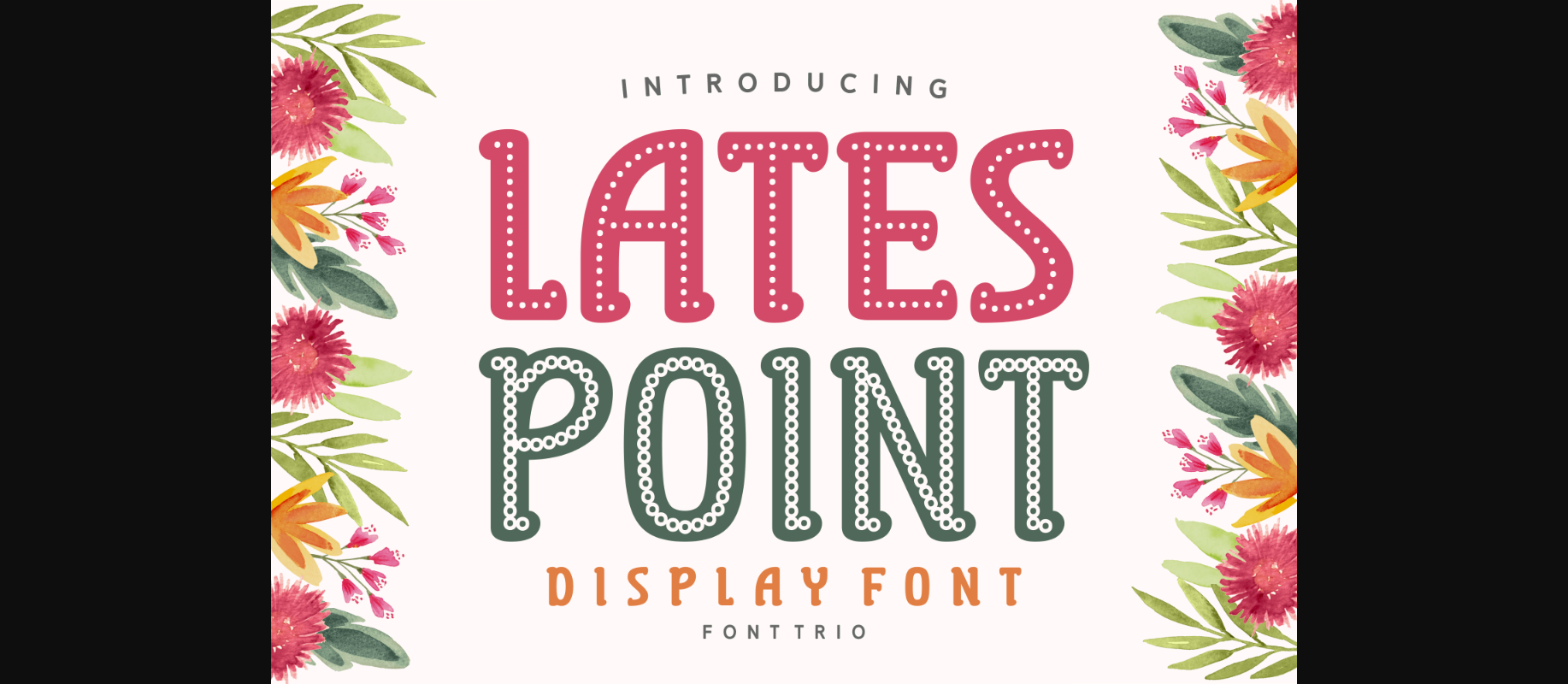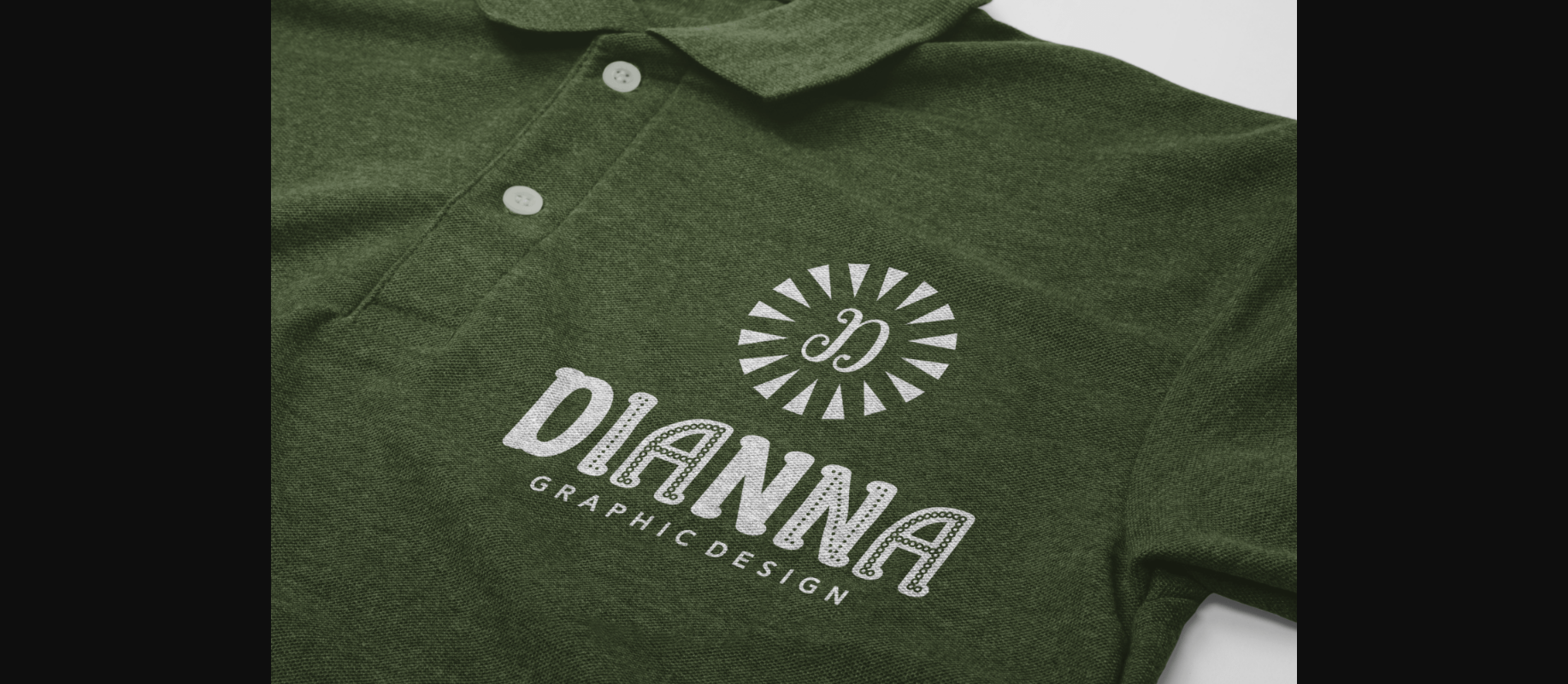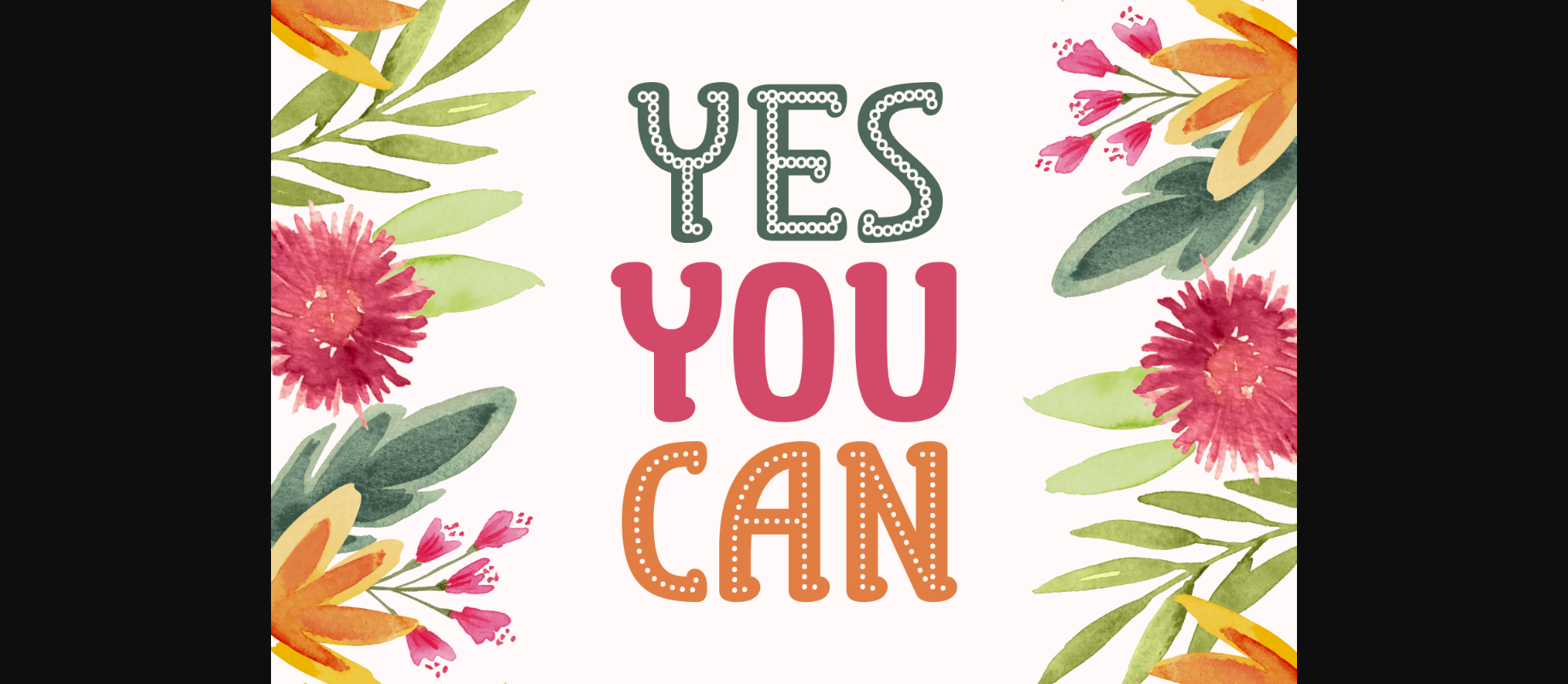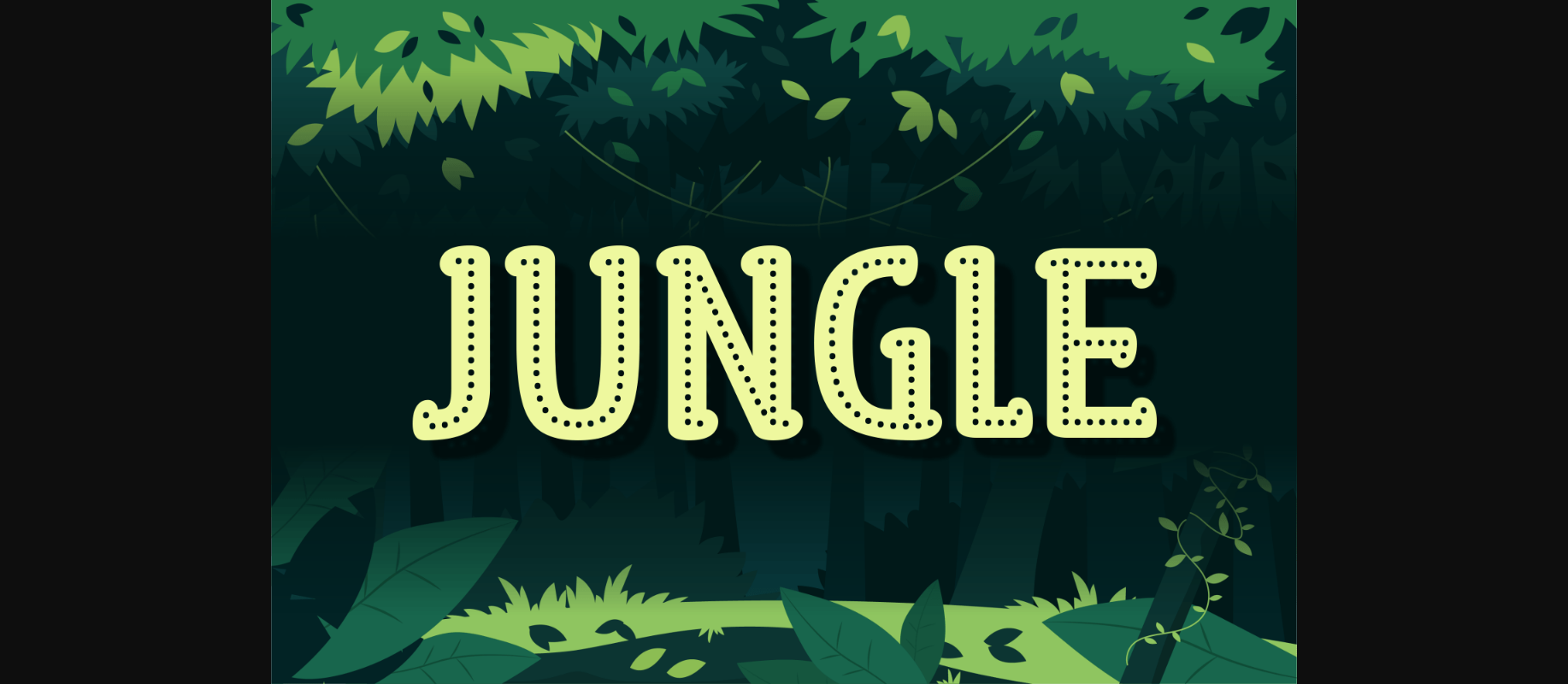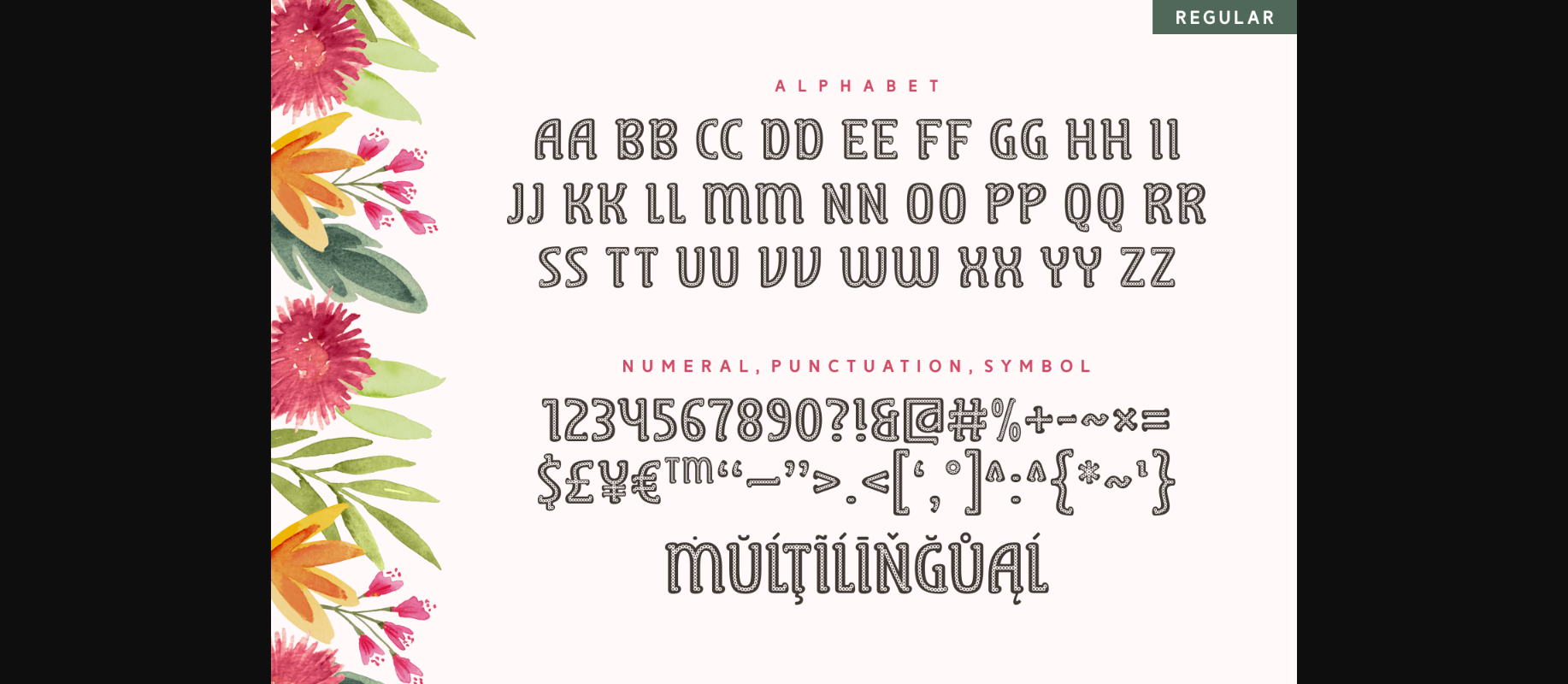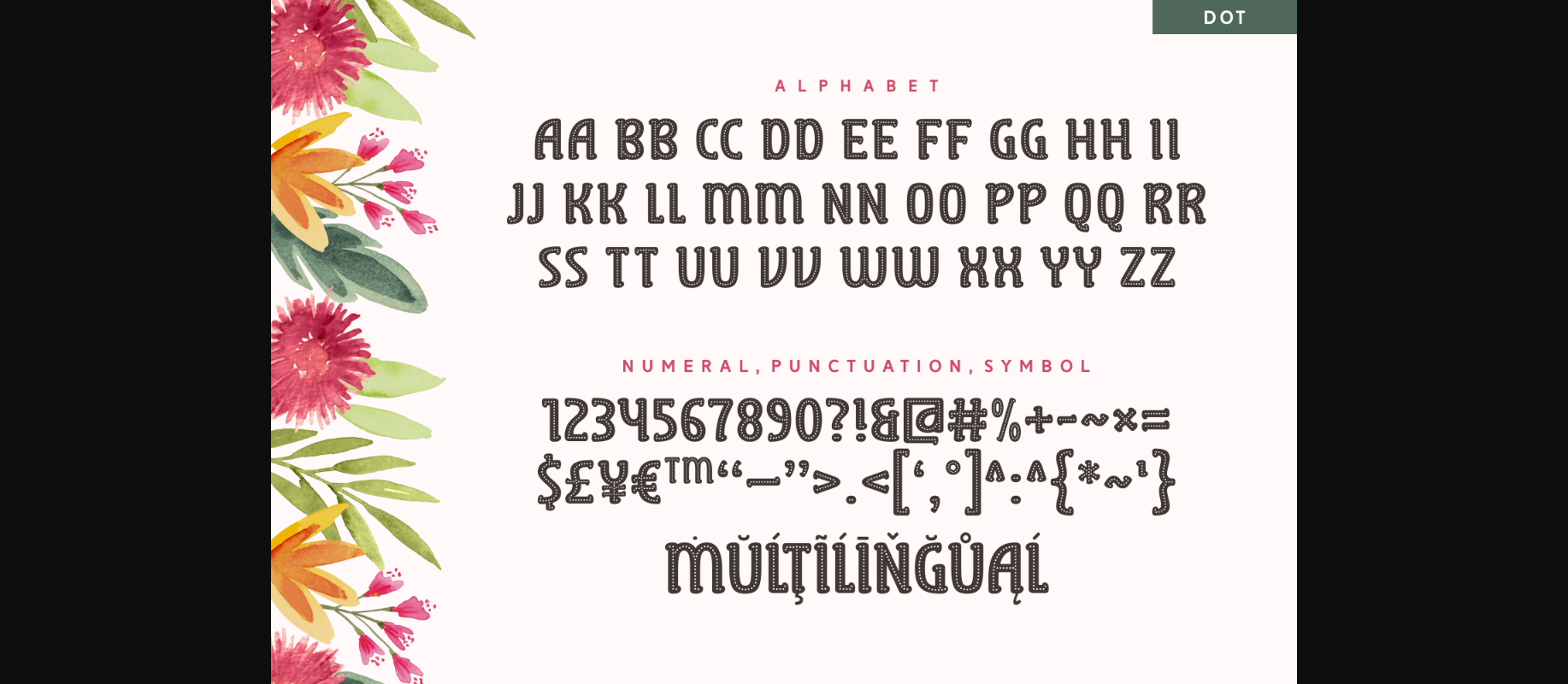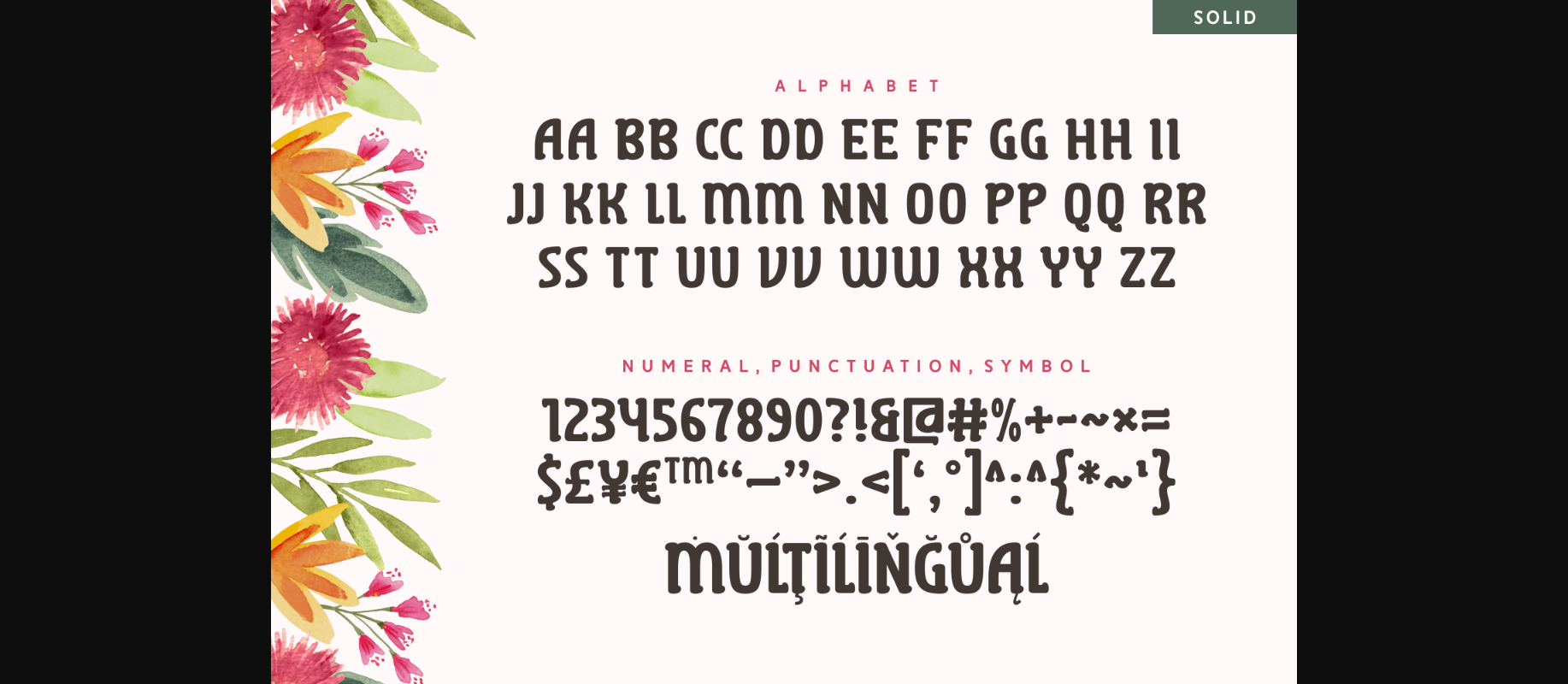
Lates Point Font
About Lates Point Font
Lates Point is a fun and creative decorative font family. It includes three versions – solid, dot, and regular. Cute and joyful, this typeface will add some charm to your typography designs. Use it to express your creative ideas!